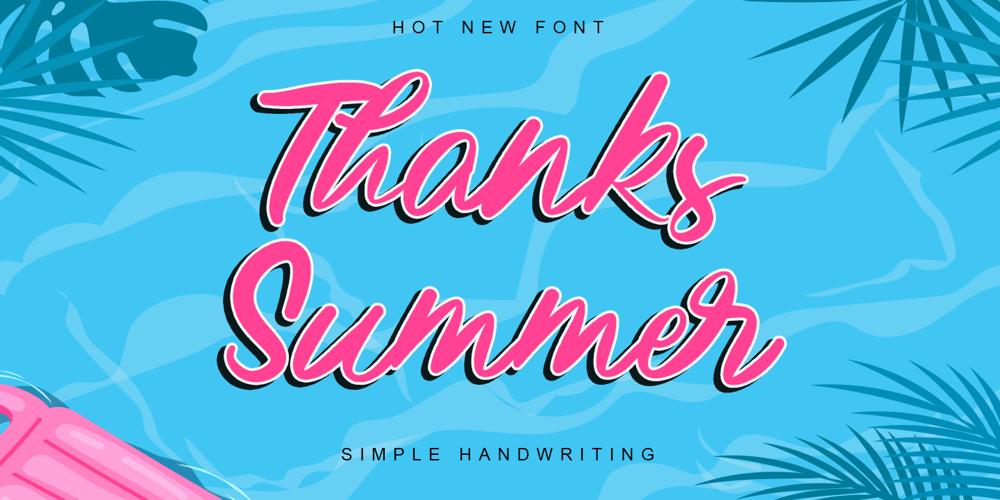
Thanks Summer Font Family was designed by Thomas Aradea and published by Letterara. Thanks Summer contains 1 styles and family package options. Thanks Summer is a fresh and sweet handwritten font. Its distinct and well-rounded letters make this font a masterpiece. Its casual charm makes it appear wonderfully down-to-earth, readable, and, ultimately, incredibly versatile. Thanks Summer will look outstanding in any context, whether it’s being used on busy backgrounds or as a standalone headline! This font is PUA encoded which means you can access all of the awesome glyphs with ease! It also features a wealth of special features including ligatures.